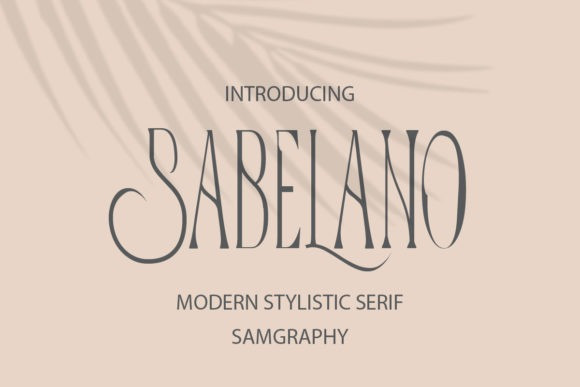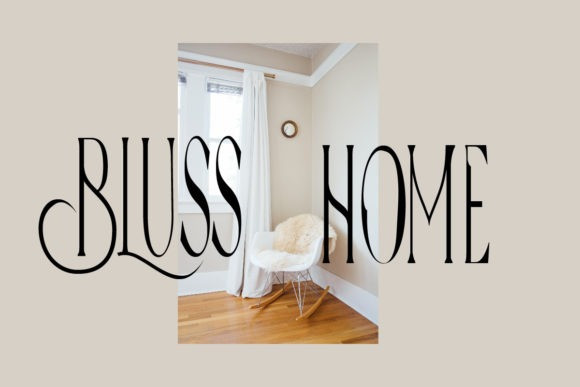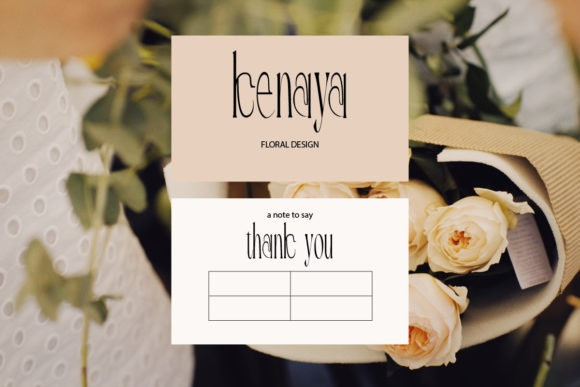
Sabelano Font
Sabelano is an elegant and tall serif font. Distinct and luxurious, this font will make each of oyur creations look out of this world. Add it confidently to your favorite creations and let yourself be amazed by the outcome generated.